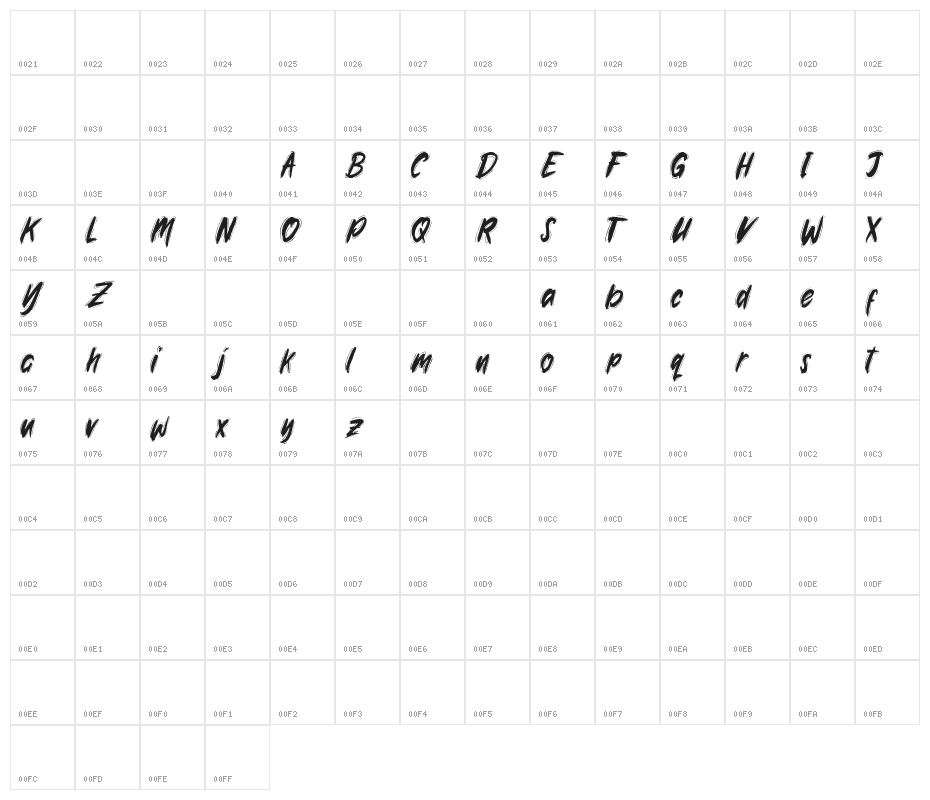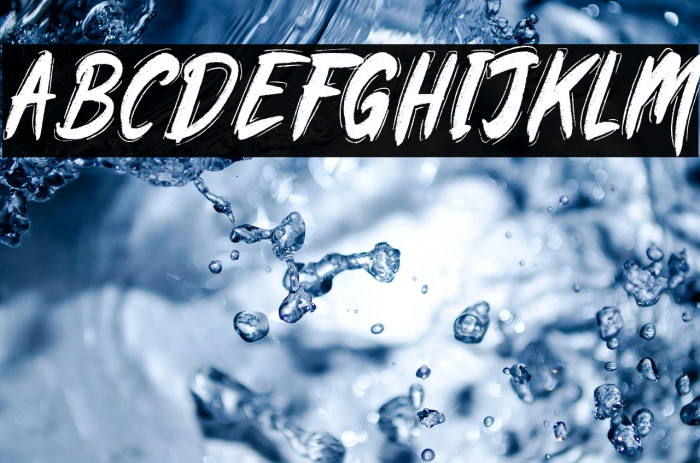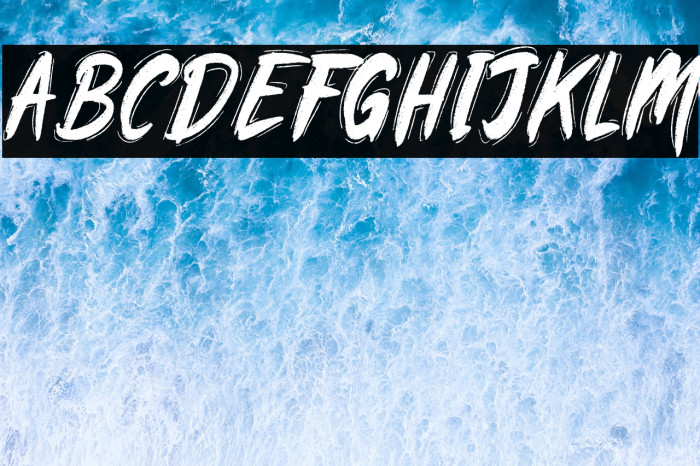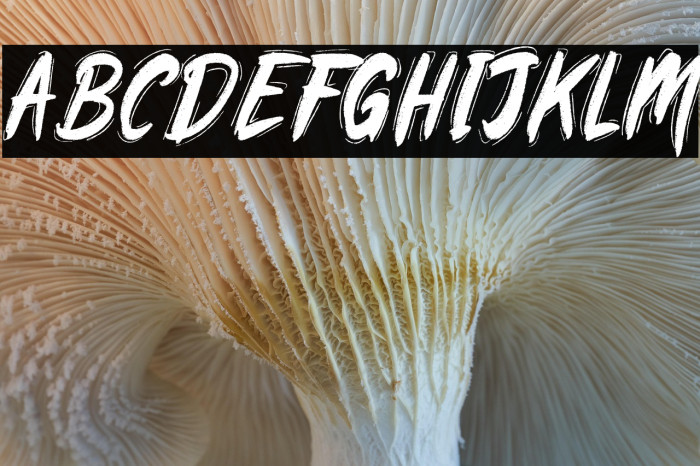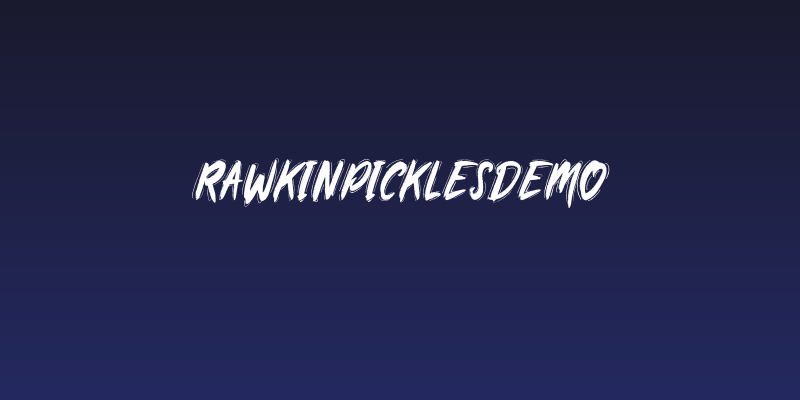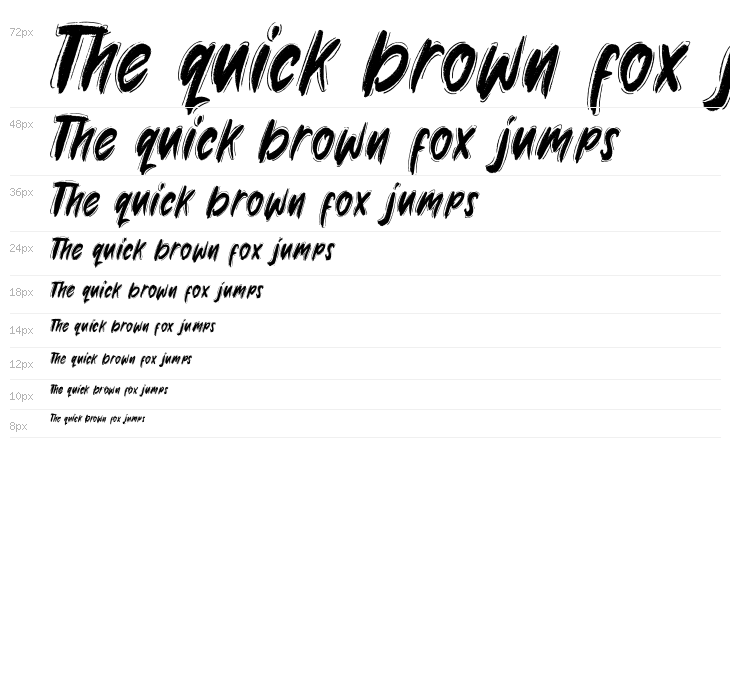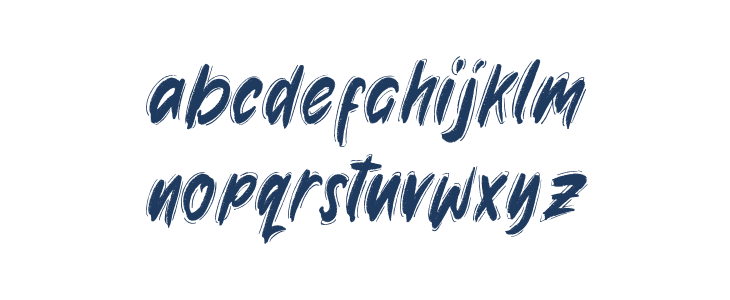
Rawkinpicklesdemo Font
Rawkinpicklesdemo Description
This font exhibits a bold, energetic style with a brush-like texture that gives it a dynamic and expressive appearance. The strokes are thick and uneven, creating a sense of movement and spontaneity. Each letter has a unique flair, with sharp edges and varying stroke widths that add to its artistic and rebellious character. The uppercase and lowercase letters maintain a consistent style, while the numbers and special characters complement the overall design. This font is perfect for projects that require a bold statement and a touch of creativity.
| Overall Style | Modern, Artistic |
| Proposed Projects | Ideal for posters, album covers, branding, and any design needing a bold, artistic touch. |